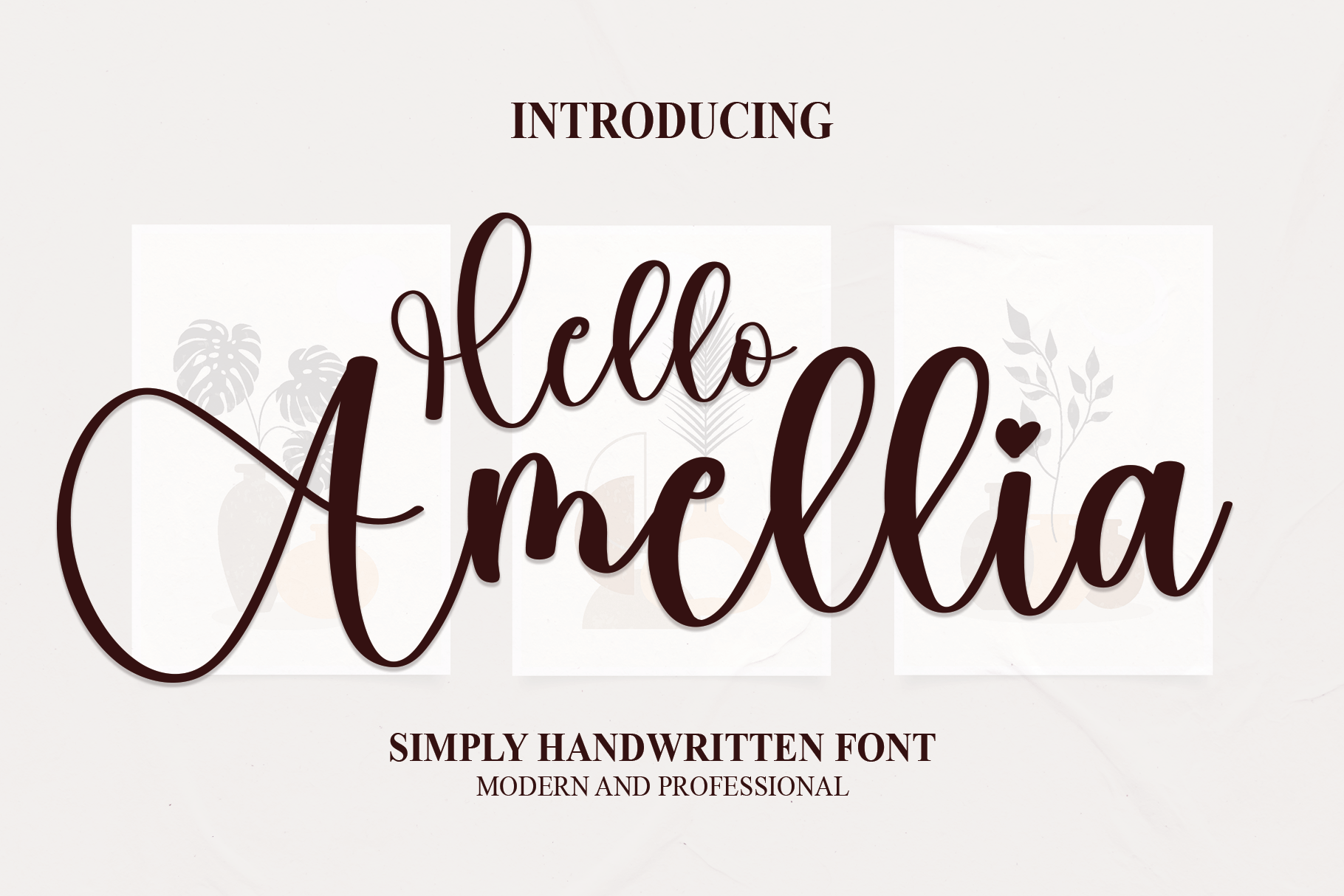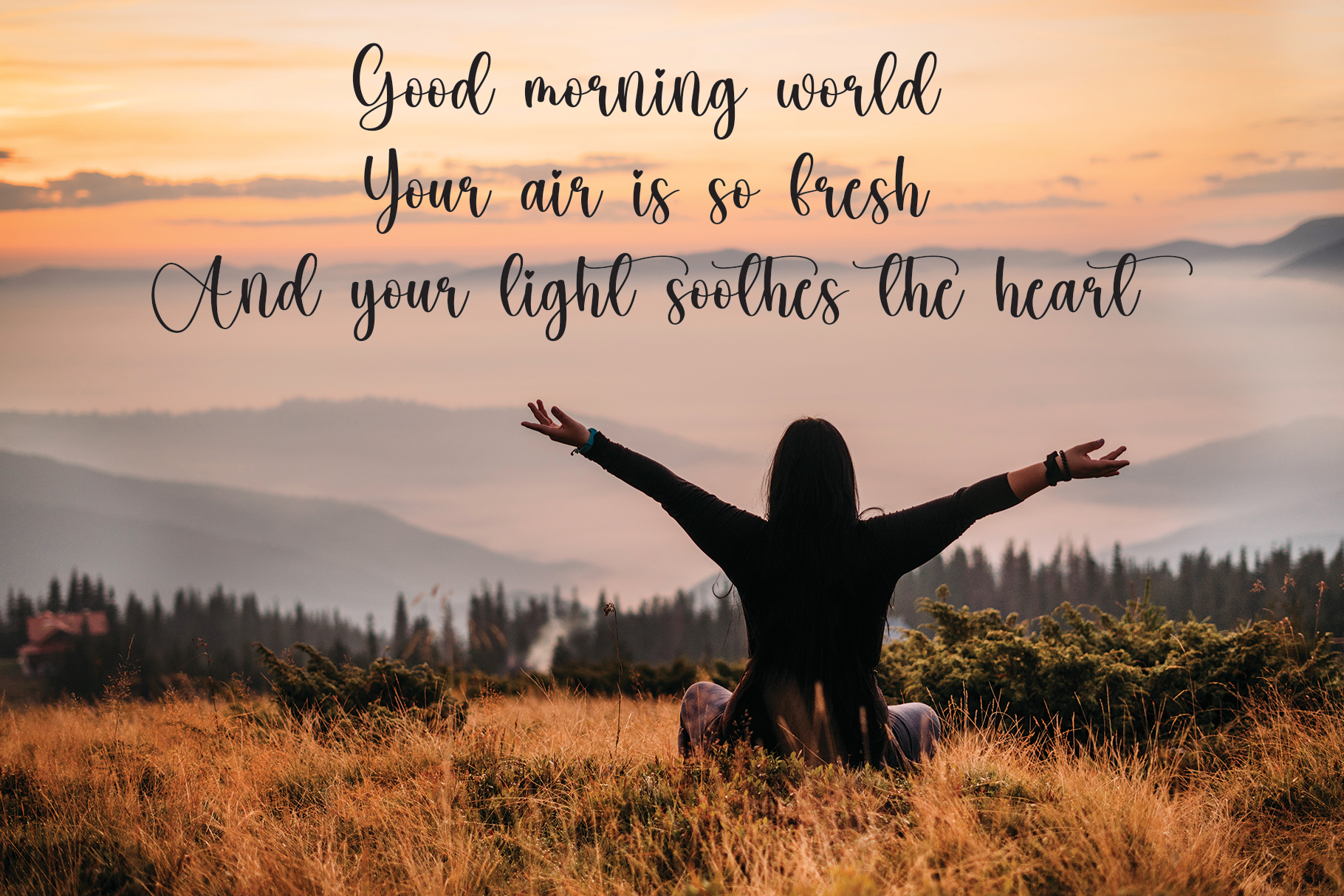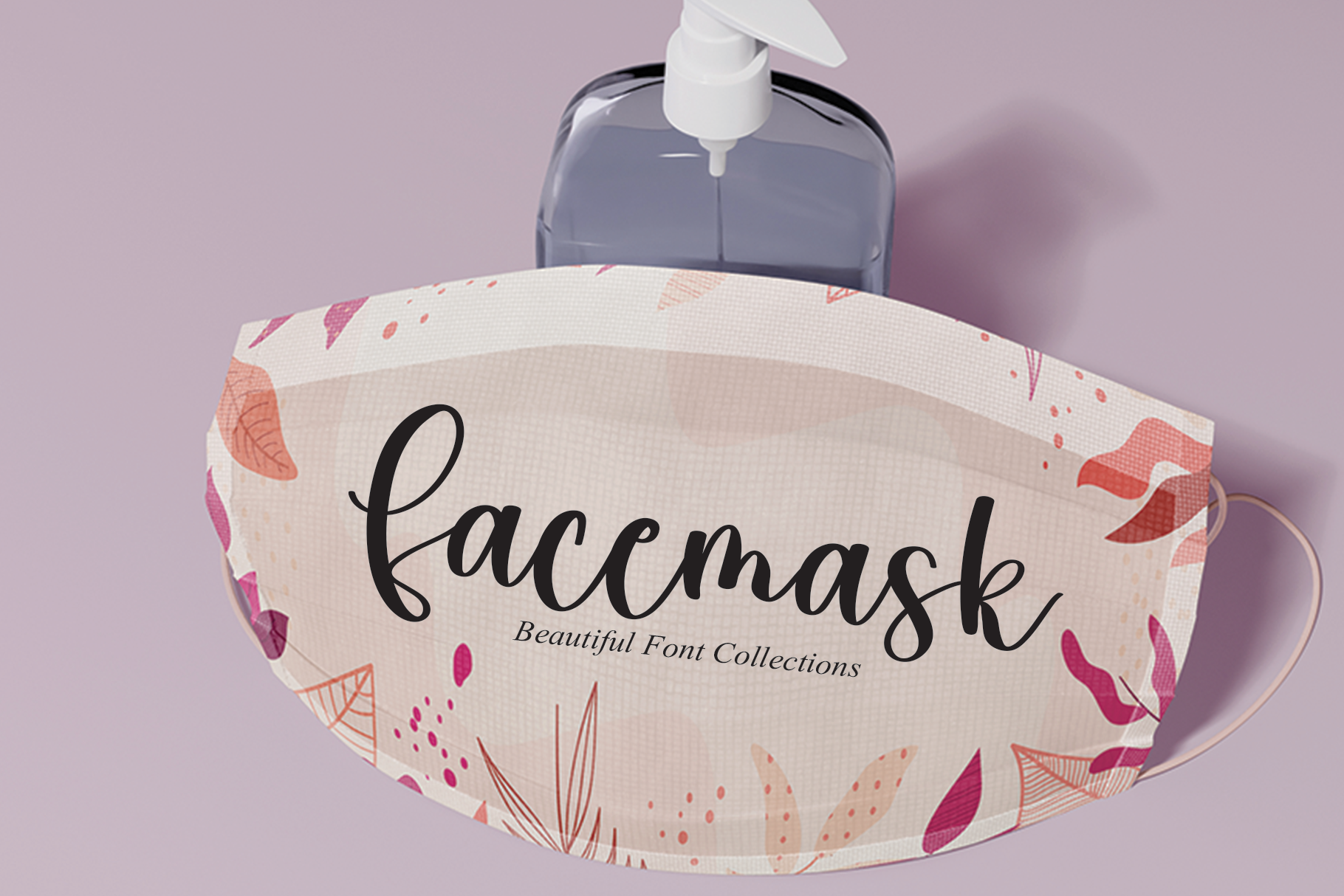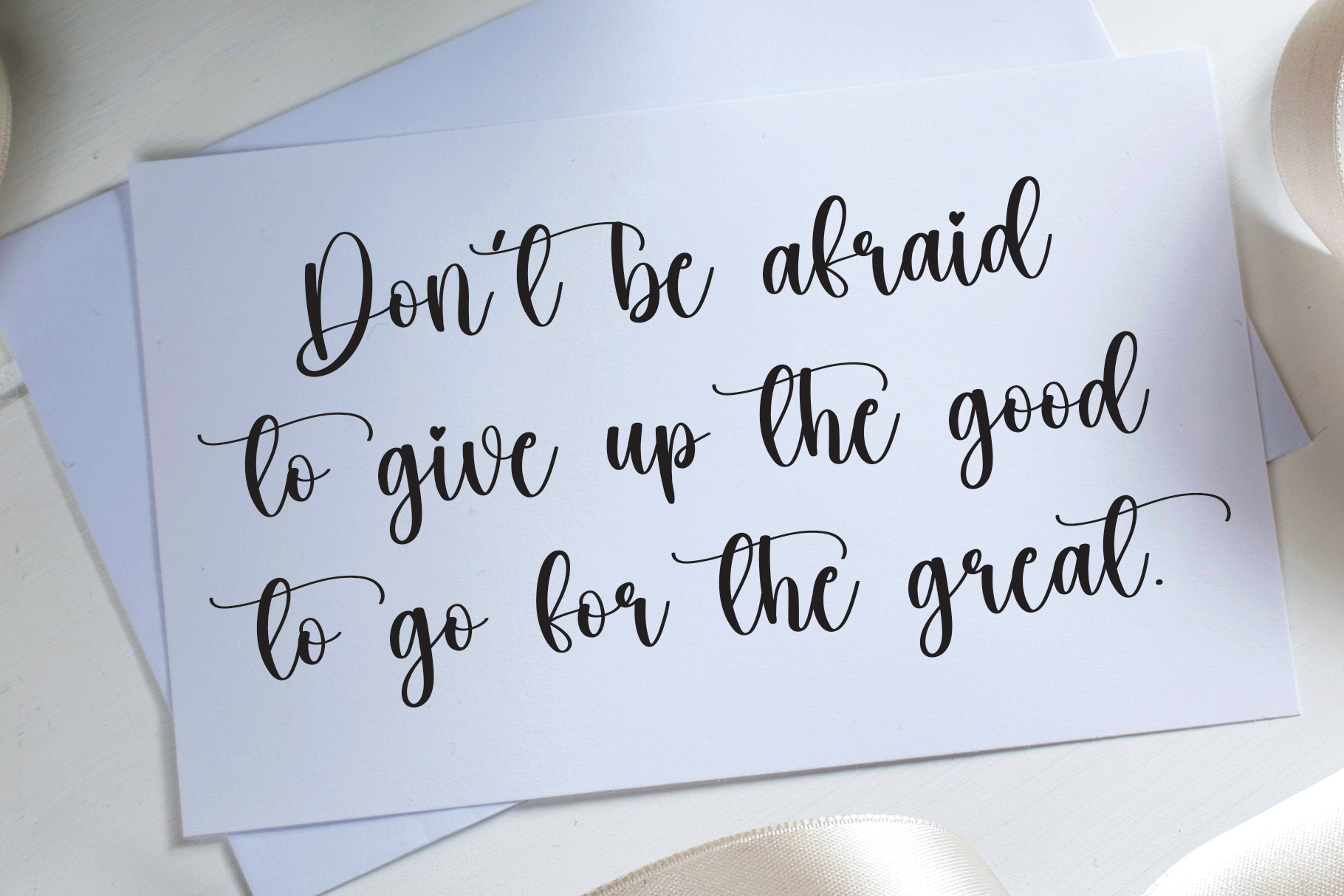
Hello Amellia Font
Hello Amellia Script Font
This is a sweet, whimsical, flowing and thin script font. Featuring characters that dance along the baseline, this font will add a luxury spark to any design project that you wish to create!
the latest style letters are perfect for wall displays, wedding invitations, social media post logos, advertisements, product packaging, product designs, labels, photography, watermarks, invitations, stationery, and any project that requires taste handwriting.